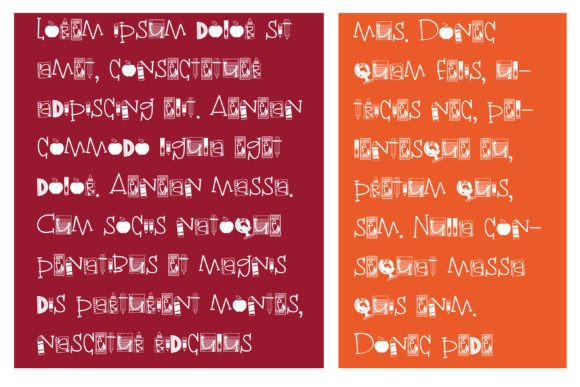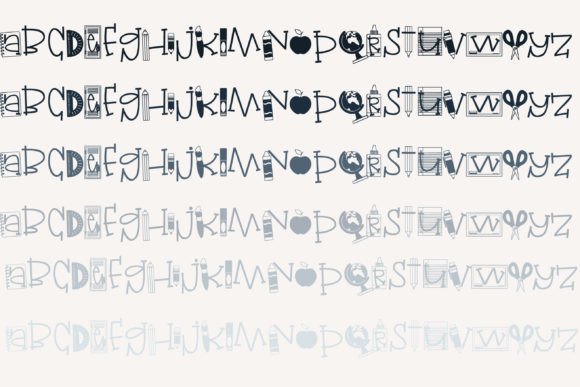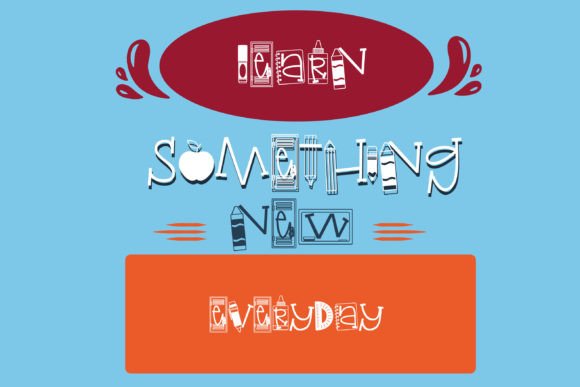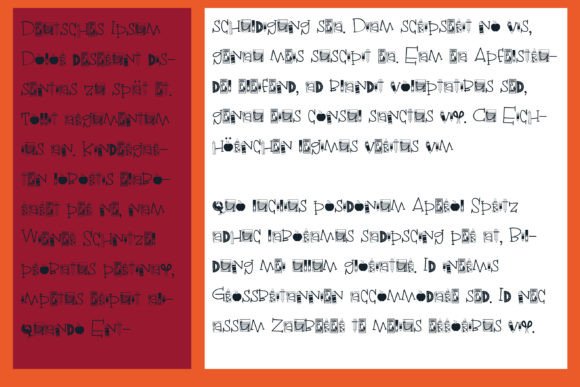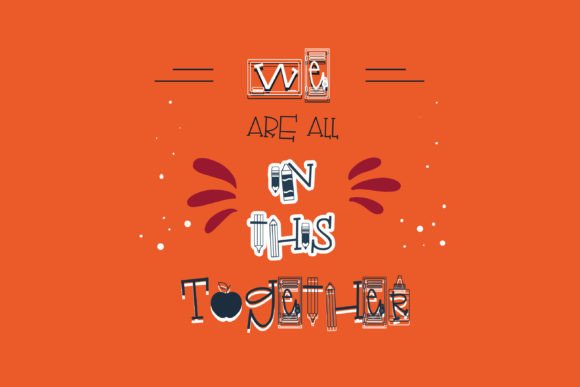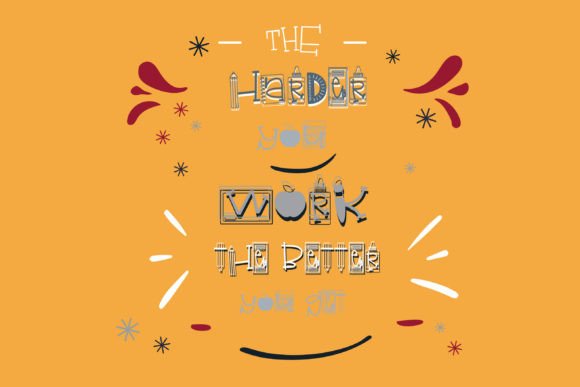
Introducing Educate Font: A Hand-Crafted Serif Font for Creative Minds
Are you a designer, crafter, or educator looking for a unique font to add a personal touch to your projects? Look no further than Educate Font, a hand-crafted serif font that is partially made up of school supplies. In this article, we’ll explore the world of hand-crafted fonts, their uses, and the benefits of using Educate Font in your creative endeavors.
A hand-crafted font is a typeface that is designed to look like it was written by hand. It is often used for invitations, greeting cards, and other items where a personal touch is desired. Handwritten fonts can be either formal or informal, and they can be used for a variety of purposes, from creative projects to commercial designs.
The Unique Features of Educate Font
Educate Font is a one-of-a-kind font that combines traditional serif elements with creative and playful school supply-inspired designs. The font is carefully crafted to resemble handwriting, with each letter and symbol uniquely designed to look like it was written with a pen or pencil. The result is a font that is both elegant and whimsical, perfect for adding a touch of personality to your designs.
Uses of Hand-Crafted Fonts like Educate Font
Hand-crafted fonts like Educate Font are incredibly versatile and can be used for a wide range of projects, including:
• Invitations and greeting cards: Add a personal touch to your special occasions with a hand-crafted font.
• Educational materials: Create engaging and interactive learning materials with a font that looks like handwriting.
• Creative projects: Use Educate Font to add a unique touch to your art, craft, or DIY projects.
• Commercial designs: Stand out from the crowd with a custom font that reflects your brand’s personality.
Benefits of Using Educate Font
So why choose Educate Font for your next project? Here are just a few benefits of using this unique font:
• Personal touch**: Educate Font adds a personal touch to your designs, making them more relatable and engaging.
• Unique style**: The font’s hand-crafted design ensures that your projects stand out from the crowd.
• Flexibility**: Educate Font can be used for both formal and informal projects, making it a versatile addition to your font collection.
Tips for Using Educate Font Effectively
To get the most out of Educate Font, here are a few tips to keep in mind:
• Use it sparingly**: Educate Font is best used as an accent font to add a touch of personality to your designs.
• Pair it with other fonts**: Combine Educate Font with other fonts to create a unique and visually appealing design.
• Experiment with colors**: Try out different colors and textures to add depth and interest to your designs.
Educate Font is a unique and versatile hand-crafted serif font that is perfect for designers, crafters, and educators looking to add a personal touch to their projects. With its creative and playful school supply-inspired designs, this font is sure to stand out from the crowd. Whether you’re creating invitations, educational materials, or commercial designs, Educate Font is a great choice for adding a touch of personality and whimsy to your work.